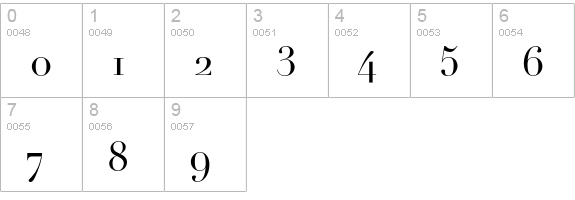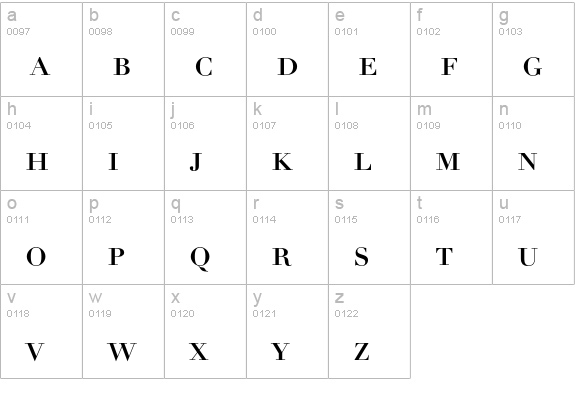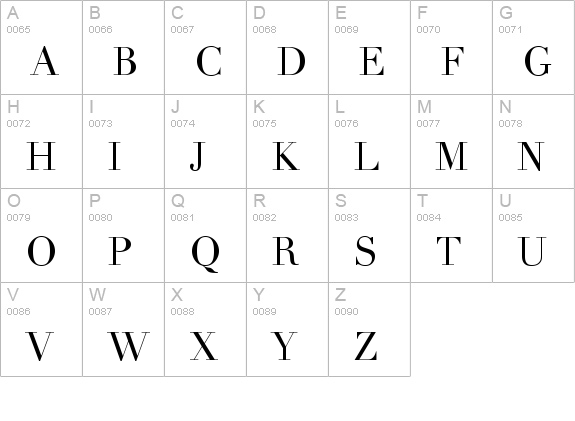
Linotype Didot Roman Small Caps & Oldstyle Figures Font Details
Linotype Didot Roman Small Caps & Oldstyle Figures font is a timeless and elegant typeface that exudes sophistication and class. The small caps add a touch of uniqueness, while the oldstyle figures bring a sense of tradition and vintage charm to any design. This font is perfect for use in luxury branding, editorial design, and any project that requires a touch of refinement. The best part? This exquisite font is available for free download at FontsMarket.com. Don't miss out on the opportunity to enhance your designs with this beautiful and versatile typeface. Download Linotype Didot Roman Small Caps & Oldstyle Figures font today and elevate your projects to the next level.